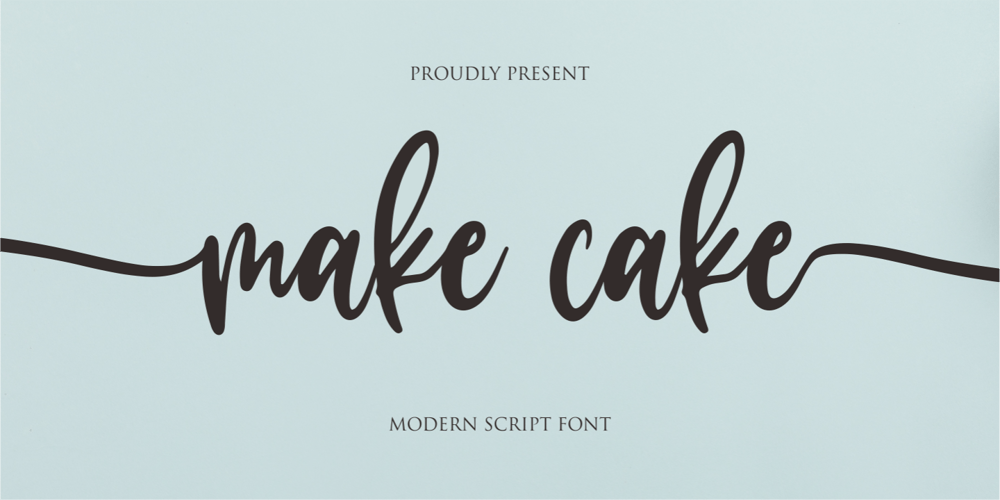
Make Cake Font Family was designed by Siti Nurjanah and published by NJ Studio. Make Cake contains 1 styles and family package options. Hi…Thank for your visit :)Make cake a script font. It features beginning swash and ending swash characters that will take your projects to the next level!This font is PUA code which means you can easily access all the glyphs and swashes that are full of swash! It also features many special features including glyphs. font designs that are made for various vector designs, printing such as digital wedding blogs, online shops, social media, while printing can be used in the field of product clothing, accessories, bags, pins, logos, business cards, watermarks and many others …so it can make your product look cute and attractive, and also Multilingual support!!!Happy design …